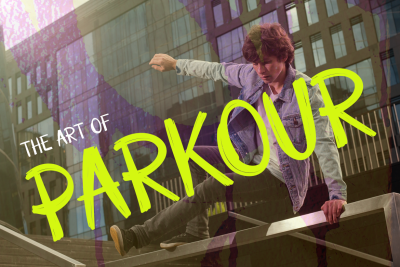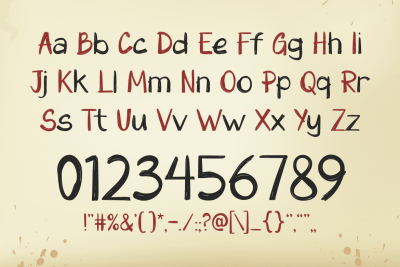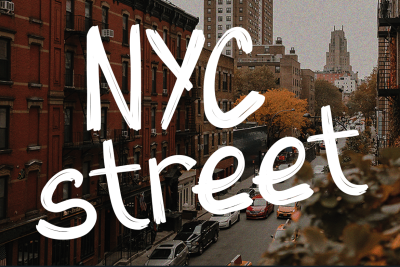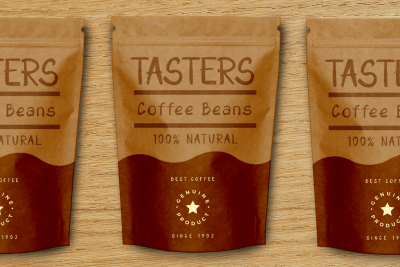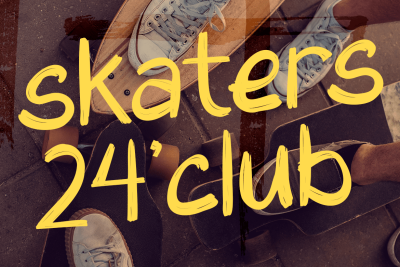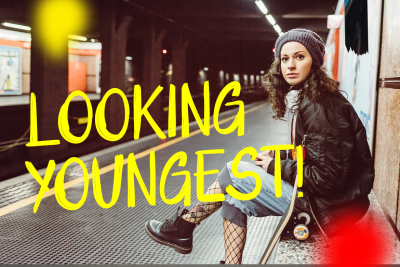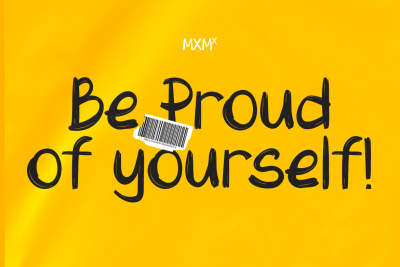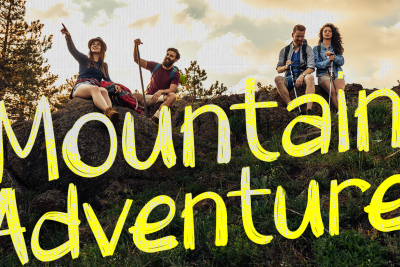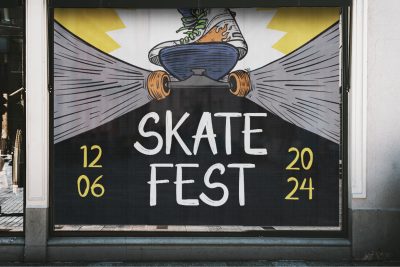
graffiti font gribble
GRIBBLE
Graffiti Font Gribble is a playful typeface inspired by the spontaneity of street art and hand-drawn scribbles. Its bold strokes and uneven letterforms create a raw, authentic graffiti style that stands out. Furthermore, this font brings a unique edge to designs, making it ideal for projects that require creativity and originality. With its casual and energetic vibe, it adds a dynamic touch to any design while still maintaining readability. Additionally, the hand-drawn details give it a personal charm, making it perfect for modern and artistic applications.
Whether you’re designing branding materials, invitations, or fun artwork, Graffiti Font Gribble delivers both style and versatility. Moreover, its bold yet quirky design ensures it grabs attention while staying easy to read. The irregular strokes also add a human, approachable feel, making it perfect for adding character to any project.
Graffiti Font Gribble Perfect For
Gribble is suitable for many users and design purposes. For instance, graphic designers can use it to create eye-catching posters, logos, or digital graphics with a bold and urban feel. Its playful style works well for children’s materials, event invitations, or any creative design that needs a personal touch.
Marketers and small business owners can benefit from this font for branding purposes. Specifically, itโ€™s perfect for creating logos, packaging, or signage for artistic or youth-focused businesses. Furthermore, itโ€™s ideal for merchandise such as t-shirts, stickers, and tote bags, adding a unique and handmade feel.
For bloggers and content creators, this font brings a lively and approachable tone to websites, social media posts, and banners. Therefore, itโ€™s an excellent choice for anyone looking to engage their audience with a fresh, creative aesthetic.
Ultimately, Graffiti Font Gribble offers a blend of boldness and charm, making it a versatile choice for those who want to infuse their projects with personality and flair.